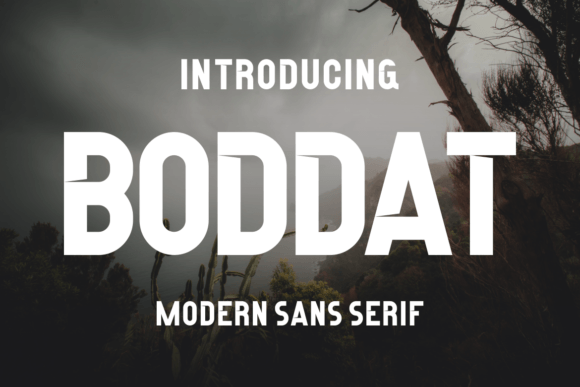
The Ultimate Design Companion: Boddat Font
Have you ever stared at a blank canvas, your mind racing with creative ideas but struggling to bring them to life? That’s where the perfect font comes in – a game-changer that can elevate your designs and make them truly unforgettable. For designers, finding the right font can be a daunting task, but what if I told you there’s a font that’s about to change the game?
Meet Boddat Font, a sleek and modern sans serif font that’s sure to capture your heart. With its unique and well-balanced letters, Boddat Font is a masterpiece that’s perfect for creating stunning designs. Whether you’re a seasoned pro or just starting out, this font is an invaluable asset that will help you take your designs to the next level.
Boddat Font Key Features
- Font Family: Boddat Font is available in a single font family with various weights and styles.
- Unique Characteristics: The Boddat Font features a unique blend of modern and vintage elements, with distinctive letterforms and a distinctive feel that sets it apart from other sans-serif fonts.
Boddat Font Review
Overall, I’d say Boddat Font is a solid choice for those looking for a playful, modern sans-serif font. Here are some things that work well:
- ✨ Unique character: Boddat Font has a distinctive feel that sets it apart from other sans-serif fonts.
- ✨ Wide language support: This font supports a wide range of languages, making it a great choice for international projects.
- ✨ Customizable: The font comes with a range of weights, from light to bold, allowing you to customize it to suit your design needs.
- ⚠️ Limited legibility at small font sizes: I found that the font can become difficult to read at font sizes below 12px.
- ⚠️ Not ideal for body text: While Boddat Font is great for headlines and titles, it may not be the best choice for large blocks of body text.
Overall, I think Boddat Font is a great choice for projects where you want to add some personality and flair. While it may not be perfect for every design task, it’s definitely worth considering for the right project.
Tips for Getting the Most Out of Boddat Font
To get the most out of Boddat Font, use it for titles, headings, and emphasis. The font’s bold and playful style makes it perfect for adding a touch of whimsy to your designs. Experiment with different font sizes and colors to create visual interest. You can also use Boddat Font in combination with other fonts to create a unique and eye-catching look.
Boddat Font is perfect for creative projects, such as social media graphics, posters, and flyers. It’s also great for adding a personal touch to presentations, reports, and documents. Use it to create attention-grabbing headlines, titles, and emphasis to make your content stand out.